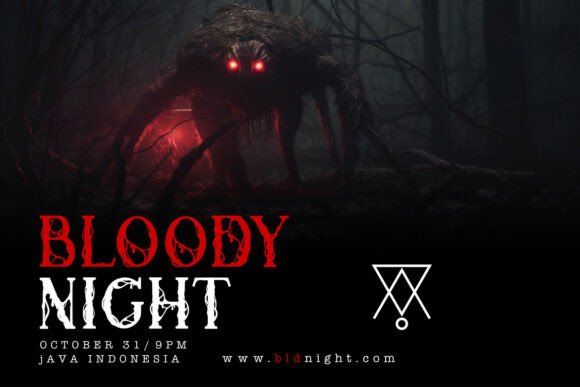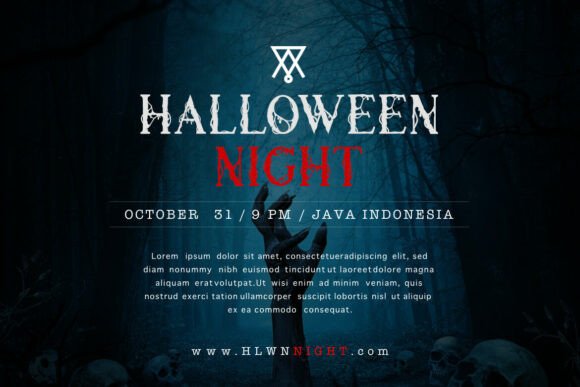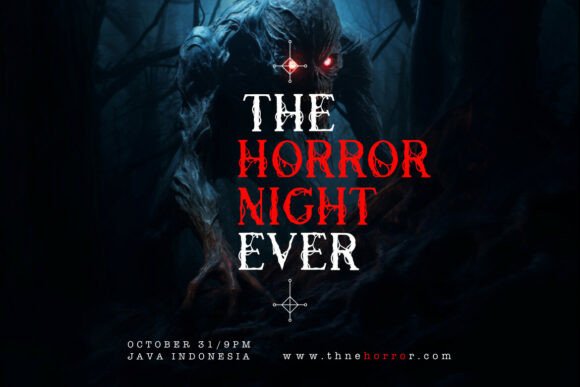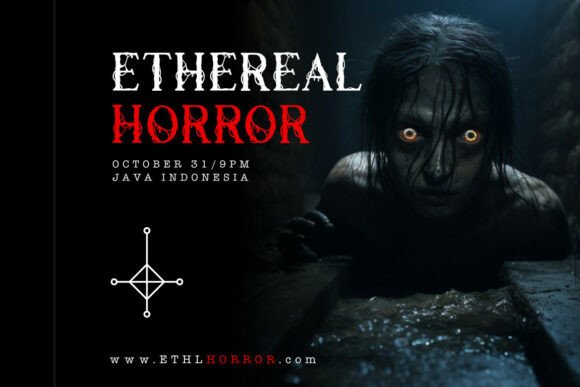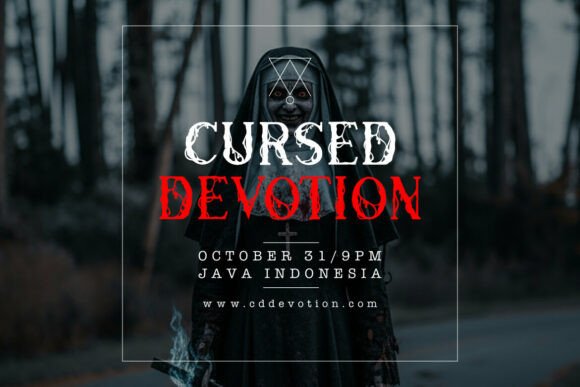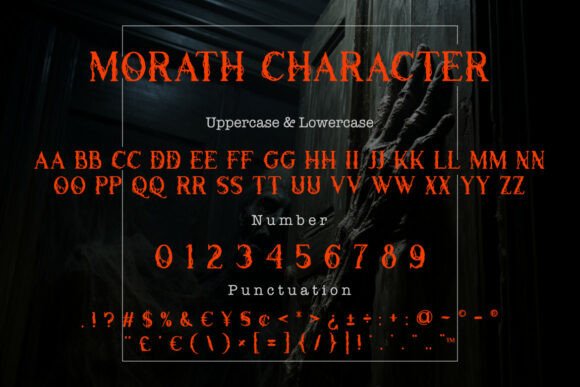
Unveiling the Darkness of Morath Font
Have you ever found yourself browsing through a dark alleyway of inspiration, searching for the perfect font to evoke an eerie atmosphere in your next creative project? For designers who crave intensity and visual drama, the search is over. Enter Morath Font, a malevolent serif typeface that exudes character and sophistication.
As you delve into the world of Morath Font, you’ll discover a hauntingly beautiful design that’s perfect for horror posters, dark branding, metal album covers, or Halloween-themed projects. With its twisted veins and dripping details, this font is a game-changer for designers looking to create a statement of darkness and design mastery. Whether you’re working on a high-profile campaign or a personal creative project, Morath Font is a valuable design resource that’s sure to leave a lasting impression.
Key Features of Morath Font
- High-quality, professional font design ideal for creative projects.
- Large character set, including uppercase and lowercase letters, numbers, and punctuation.
- Unique, modern design with a distinctive aesthetic, perfect for making a statement in creative projects.
Honest Review: Morath Font
I recently had the chance to work with the Morath Font, and I must say it’s been a game-changer for my creative project. This font is a fantastic addition to any design resource, and I’m excited to share my thoughts with you.
- High quality: The Morath Font is incredibly crisp and clear, making it perfect for both digital and print designs.
- Transparent background: This feature has been a lifesaver for me, as it allows me to easily use the font on any background without worrying about messy edges.
- ⚠️ Limited character set: While the font has a wide range of characters, I wish there were a few more options for special characters and symbols.
- ⚠️ Not ideal for bold text: When I try to use the font for bold text, it can look a bit pixelated, which is a bit of a disappointment.
Overall, I’m thoroughly impressed with the Morath Font. It’s a fantastic addition to any design resource, and I highly recommend it for any creative project. With a few tweaks to address the limitations, I’m confident it will become a go-to font for designers everywhere.
To get the most out of the Morath Font, experiment with different font sizes, colors, and combinations to find the perfect look for your project.
Common Use Cases for Morath Font
The Morath Font is ideal for a variety of creative projects, including branding, marketing materials, and social media graphics. Its unique style and high-quality design make it a great choice for designers and non-designers alike.